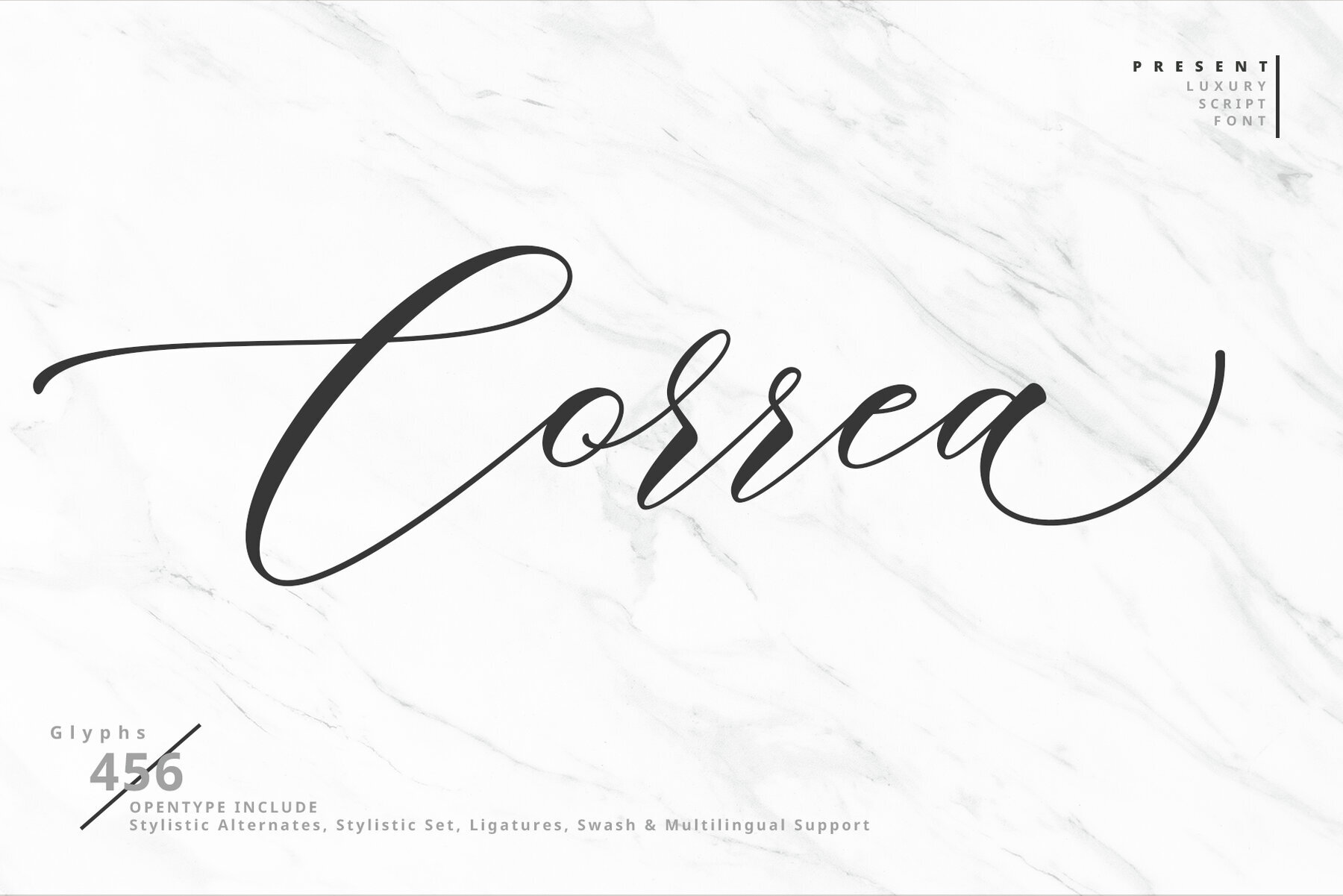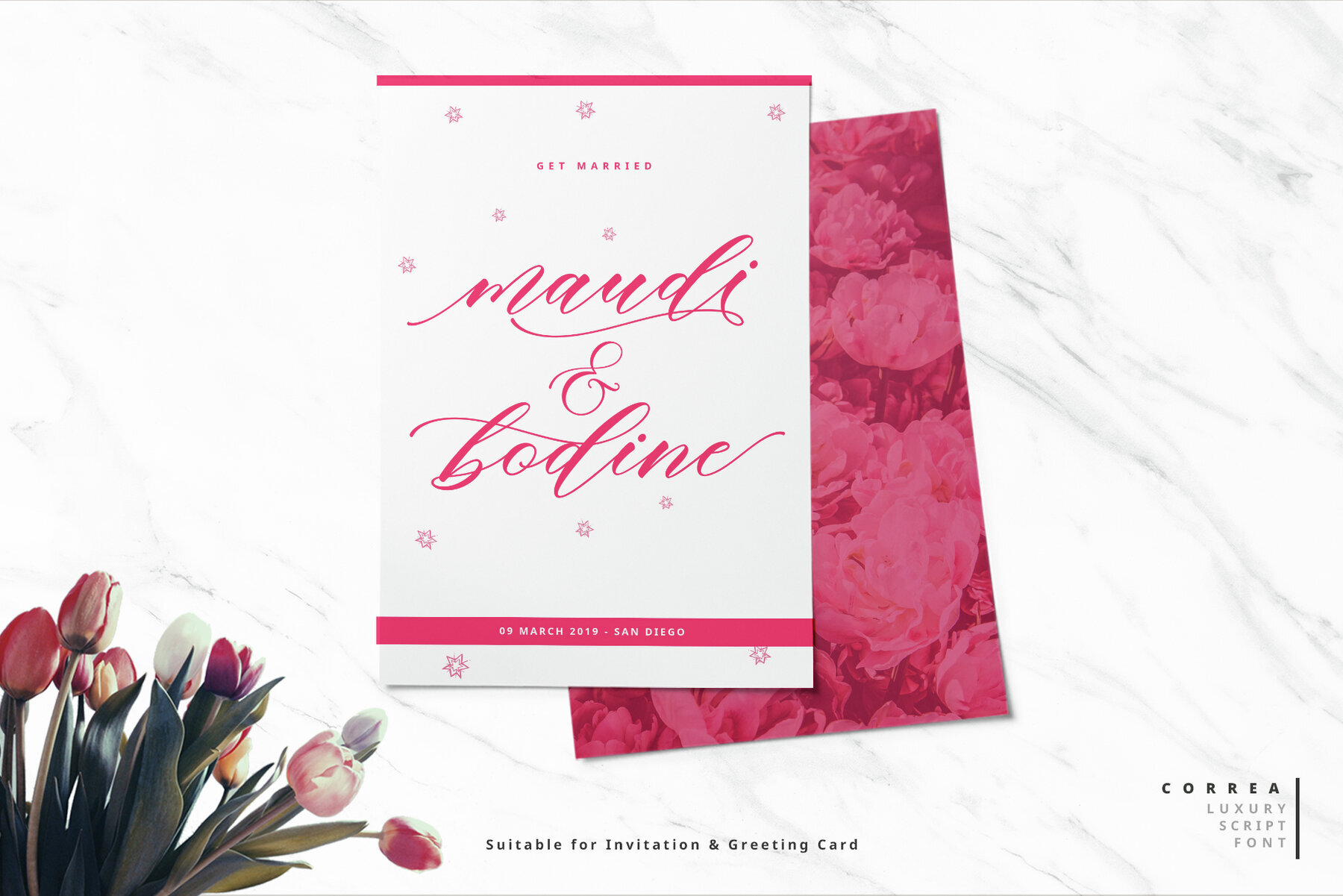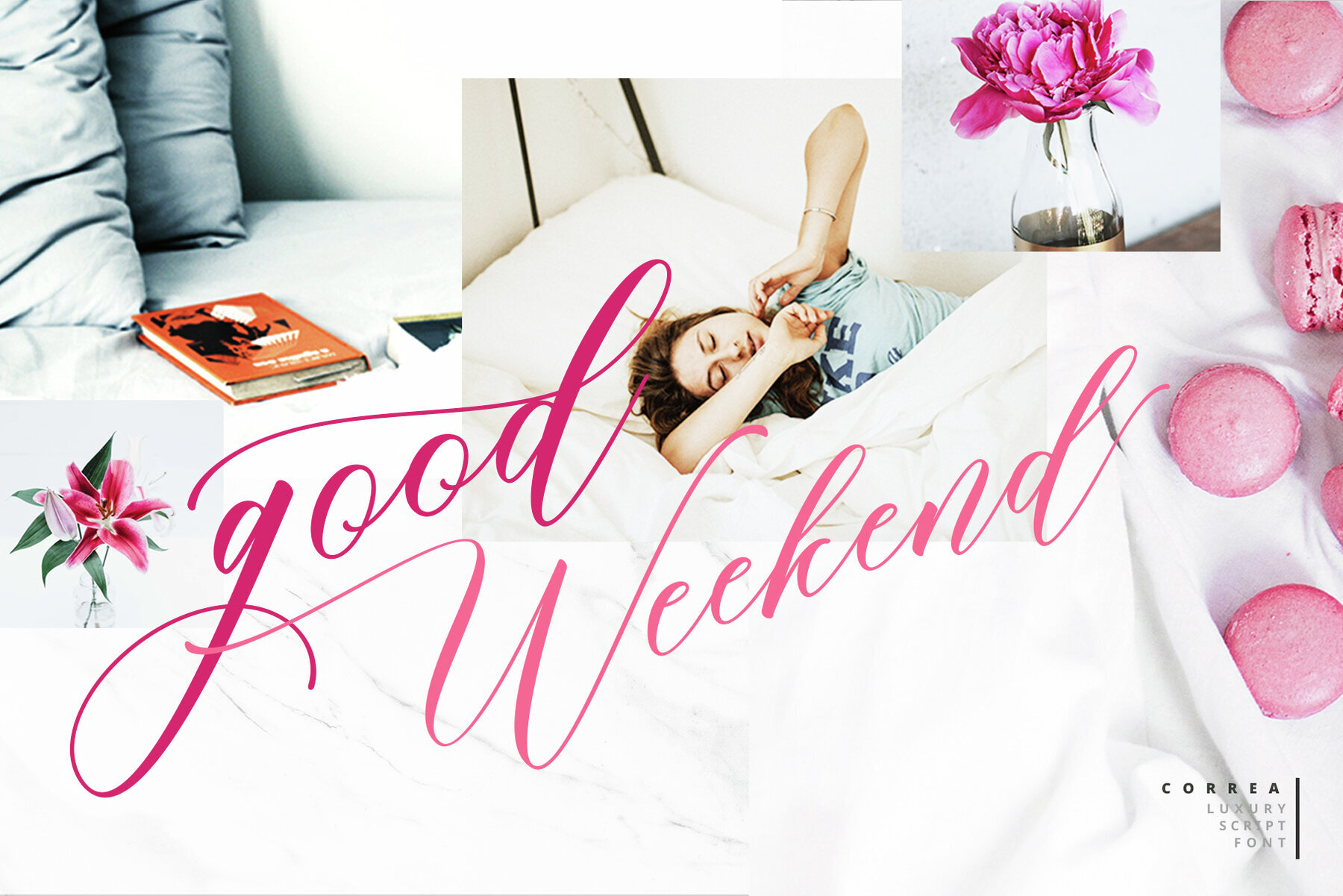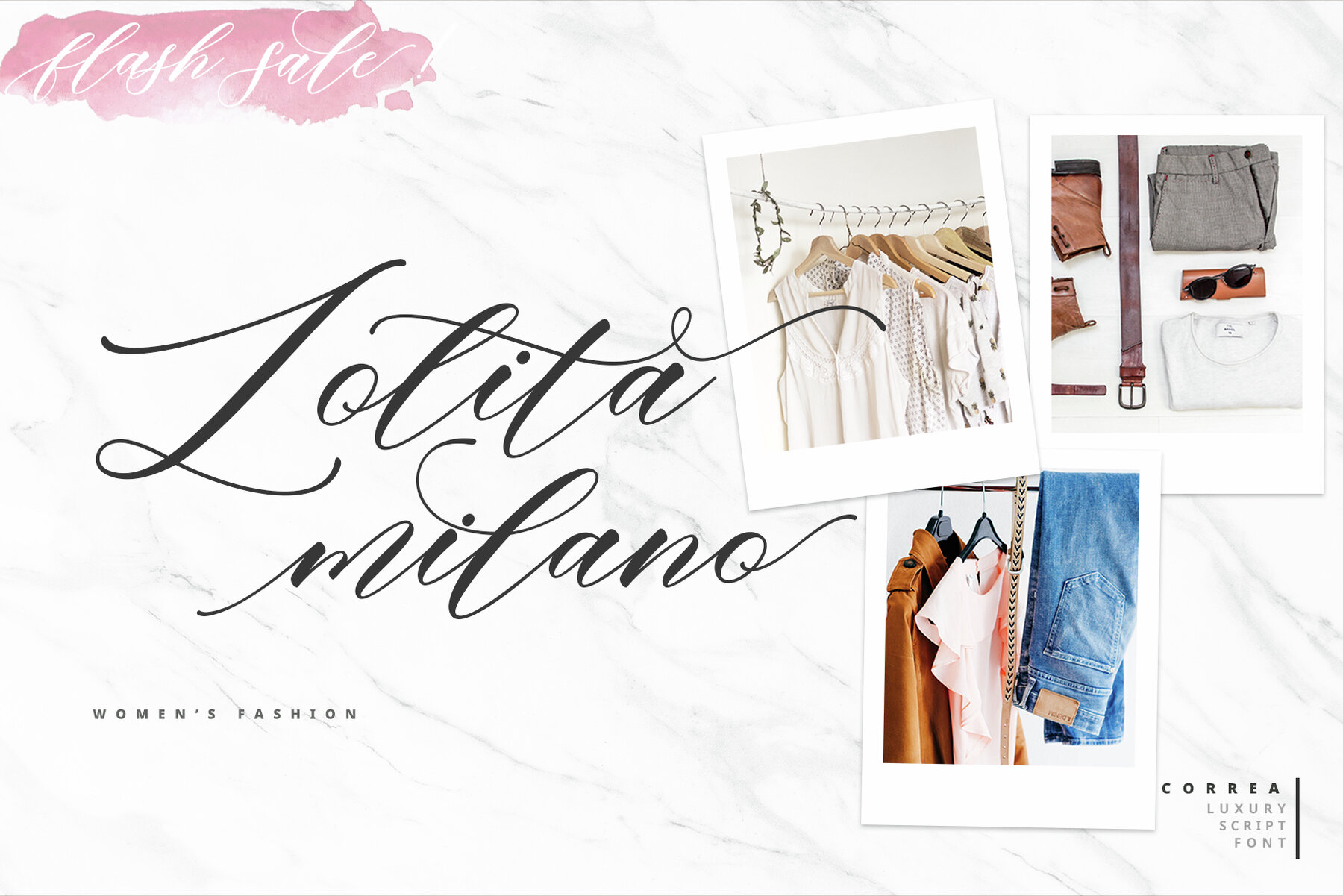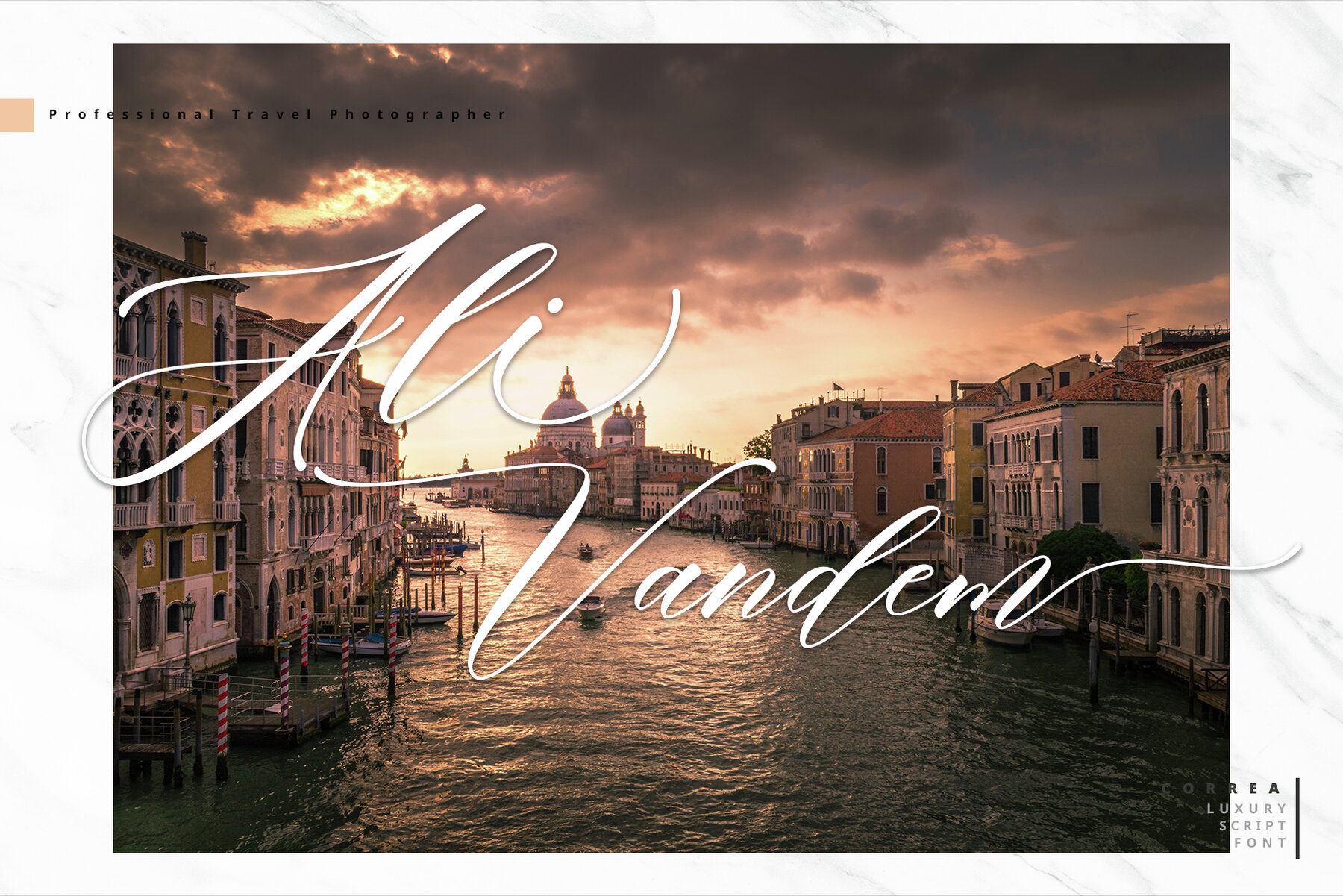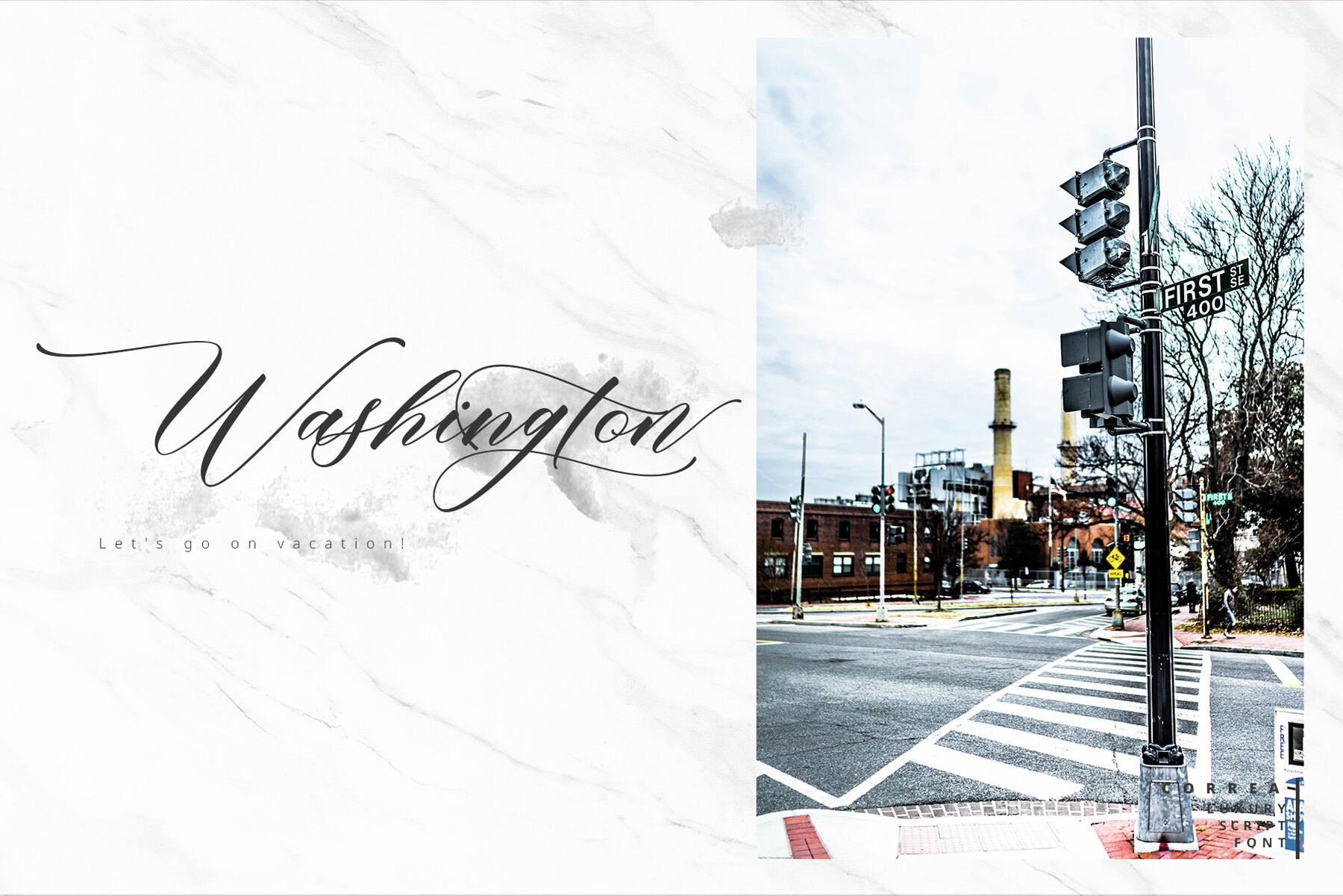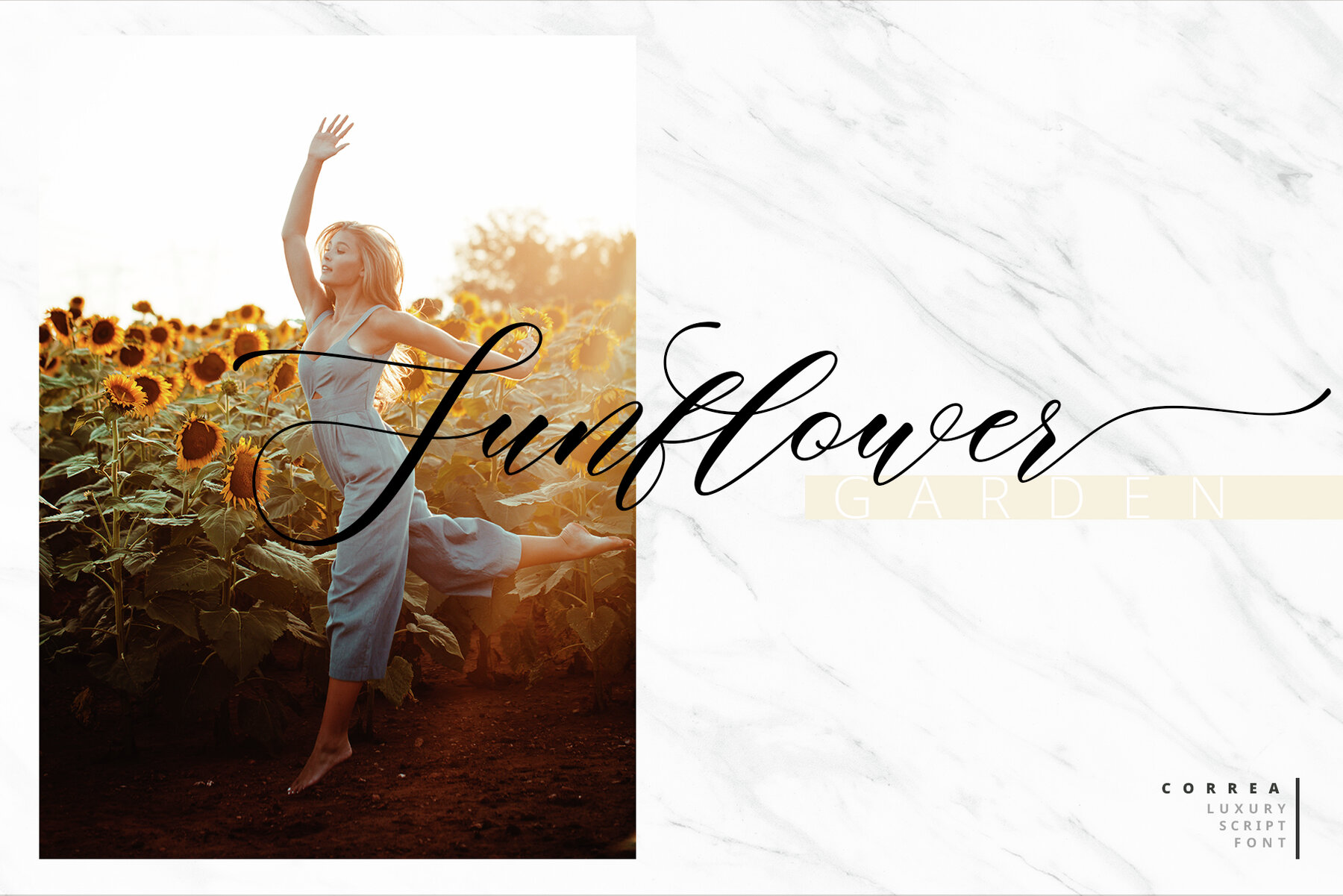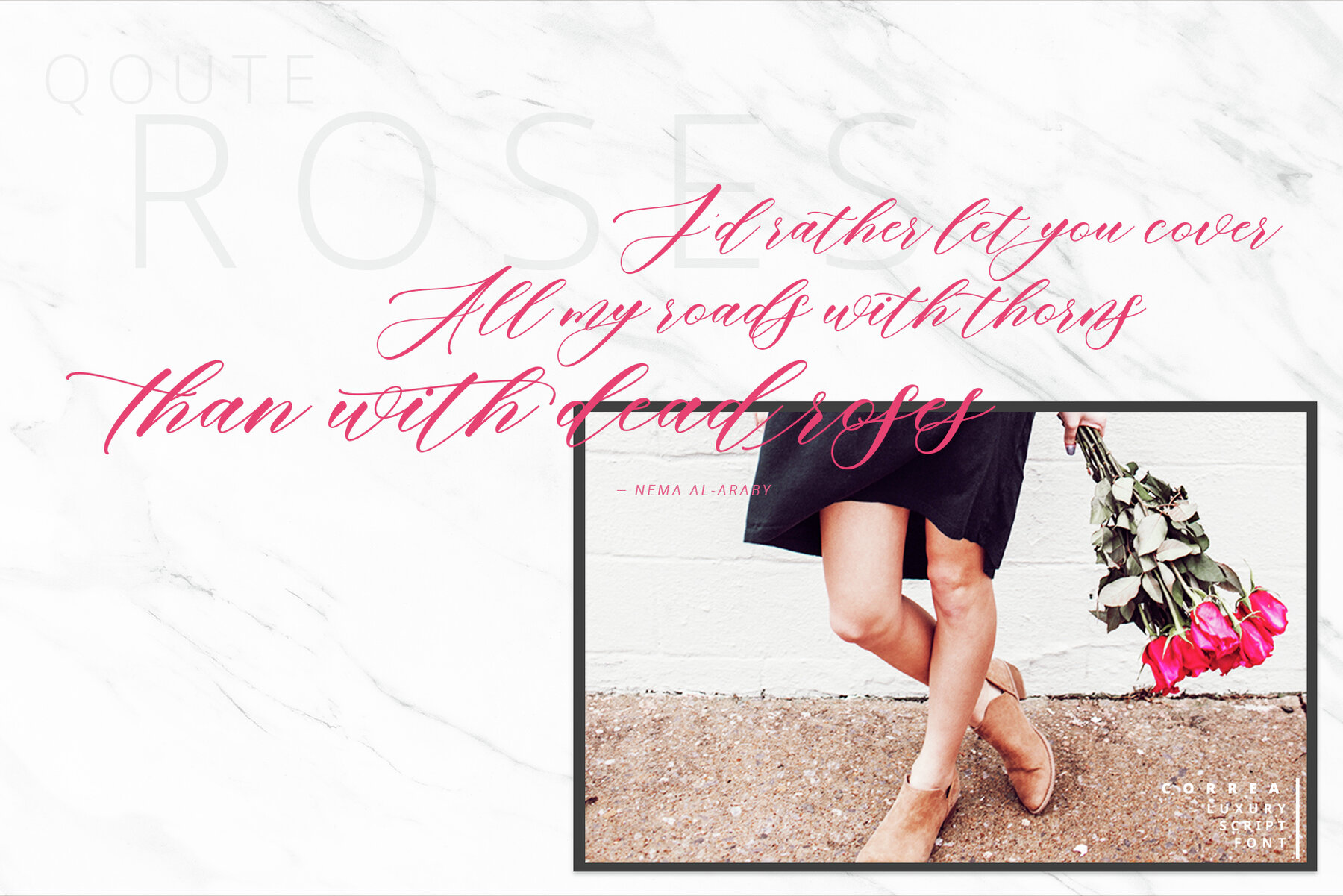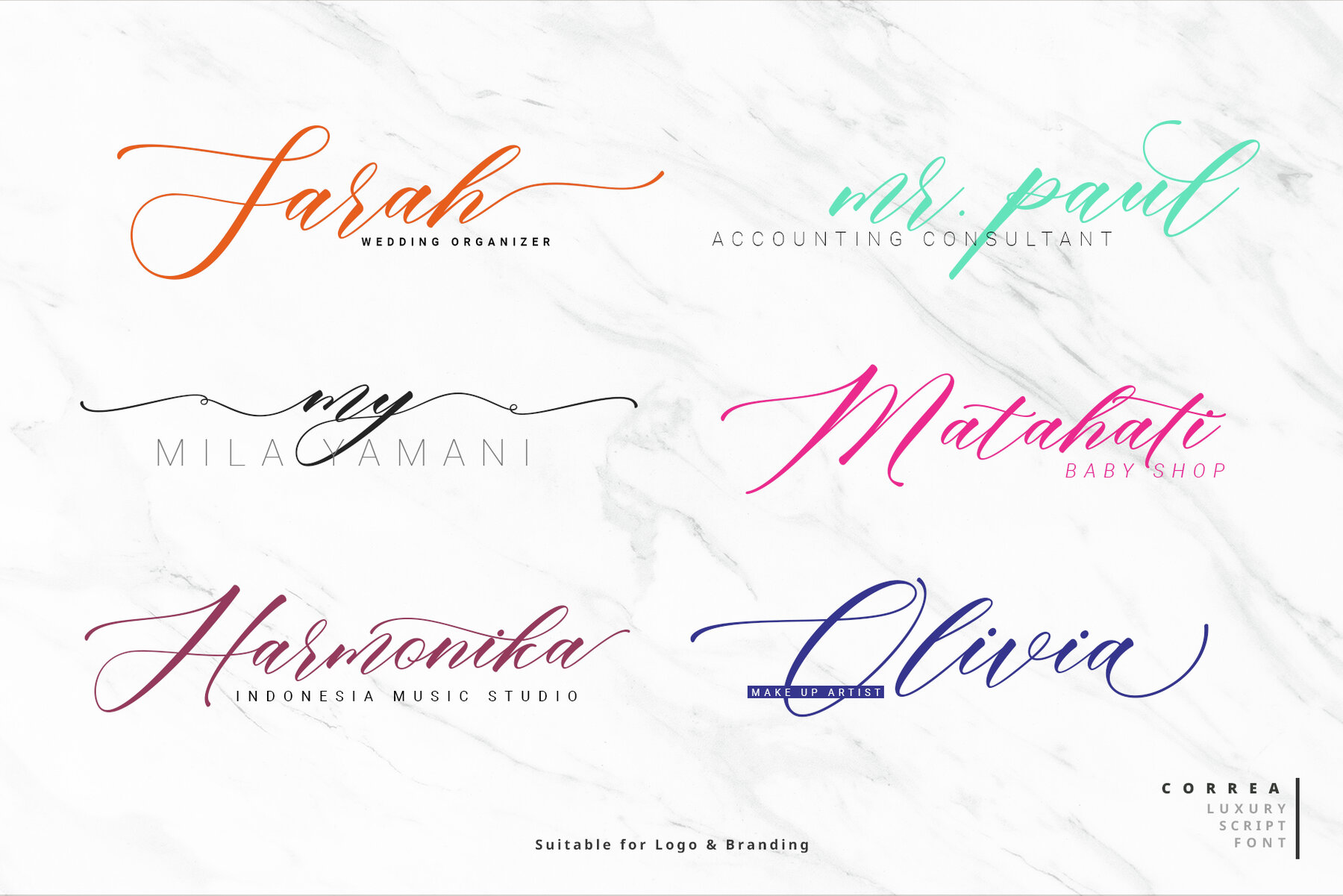
Correa Script Font
Correa Script
Meet Correa Script, a distinguished modern font that effortlessly combines luxury and elegance. Its semi-bold and italic styles boast a sleek, refined appearance suitable for various design projects. With an impressive 418 glyphs, Correa Script offers versatility, allowing you to customize your creative work with ease. Unlock the potential of Correa Script in your designs and enjoy endless possibilities with its extensive glyph collection.Introducing Correa Script